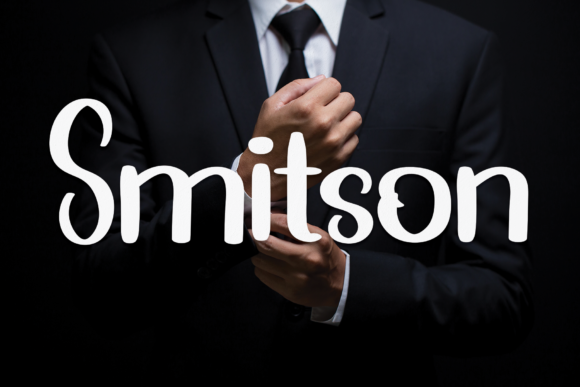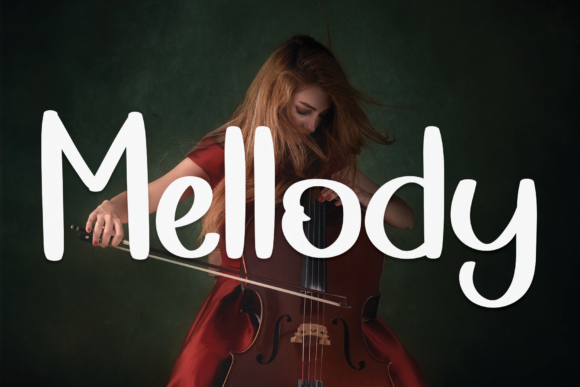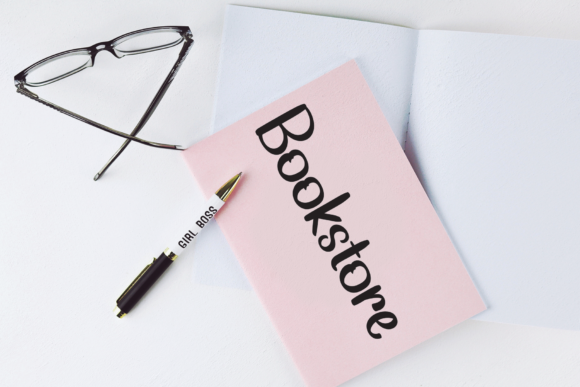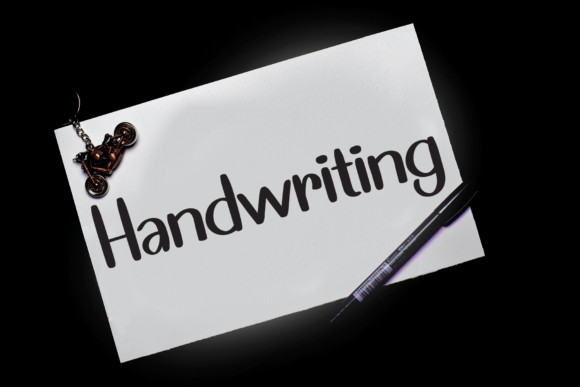
The Elegance of Greyrose Font: A Designer’s Delight
I’ll never forget the time I was working on a wedding invitation project, and my client asked for a font that was both elegant and handwritten. I scoured the internet, tried out countless fonts, but nothing seemed quite right. That was until I stumbled upon Greyrose Font. ✨ It was love at first sight! The stylish and incredibly elegant script font won my heart, and I knew I had found the perfect fit for my project.
An Honest Review of Greyrose Font
- ✨ Elegant and sophisticated design that’s perfect for wedding invitations, thank you cards, and quotes
- 💫 Beautifully crafted with attention to detail, giving it a premium feel
- 🎨 Versatile and can be used for a variety of design projects, from logos to business cards
While Greyrose Font is an amazing font, there are a few things to keep in mind: 🤔
- ⚠️ Some of the more intricate details may not render well at very small font sizes
- ⚠️ Limited availability of certain characters, such as ligatures
The Backstory of Greyrose Font
Greyrose Font was designed with love and care by a talented type designer who wanted to create a font that would evoke the feeling of elegance and sophistication. The font’s creator drew inspiration from classic script fonts, but with a modern twist. The result is a font that’s both timeless and trendy.
Q: What is Greyrose Font?
A: Greyrose Font is a stylish and incredibly elegant script font that’s perfect for wedding invitations, thank you cards, quotes, and more.
Q: Is Greyrose Font suitable for body text?
A: While Greyrose Font is beautiful, it’s best suited for headlines, titles, and short paragraphs. It’s not recommended for long-form body text.